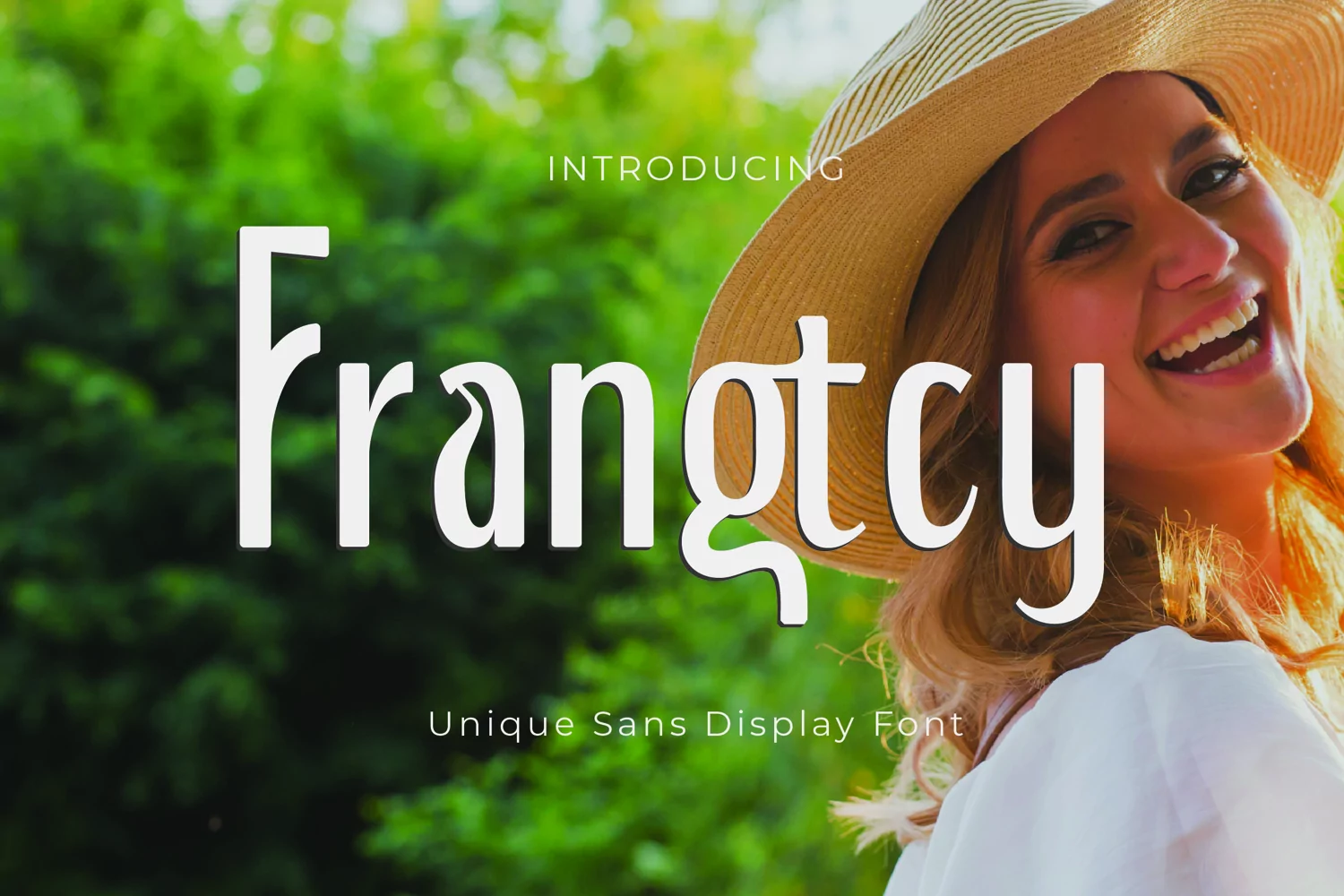
Frangtcy - Unique Sans Display
Frangtcy - Unique Sans Display with a calligraphy style, So beautiful on invitation like greeting cards, branding materials, business cards, quotes, posters, and more!
• Tons of glyphs
• Alternates and Ligatures
• Punctional